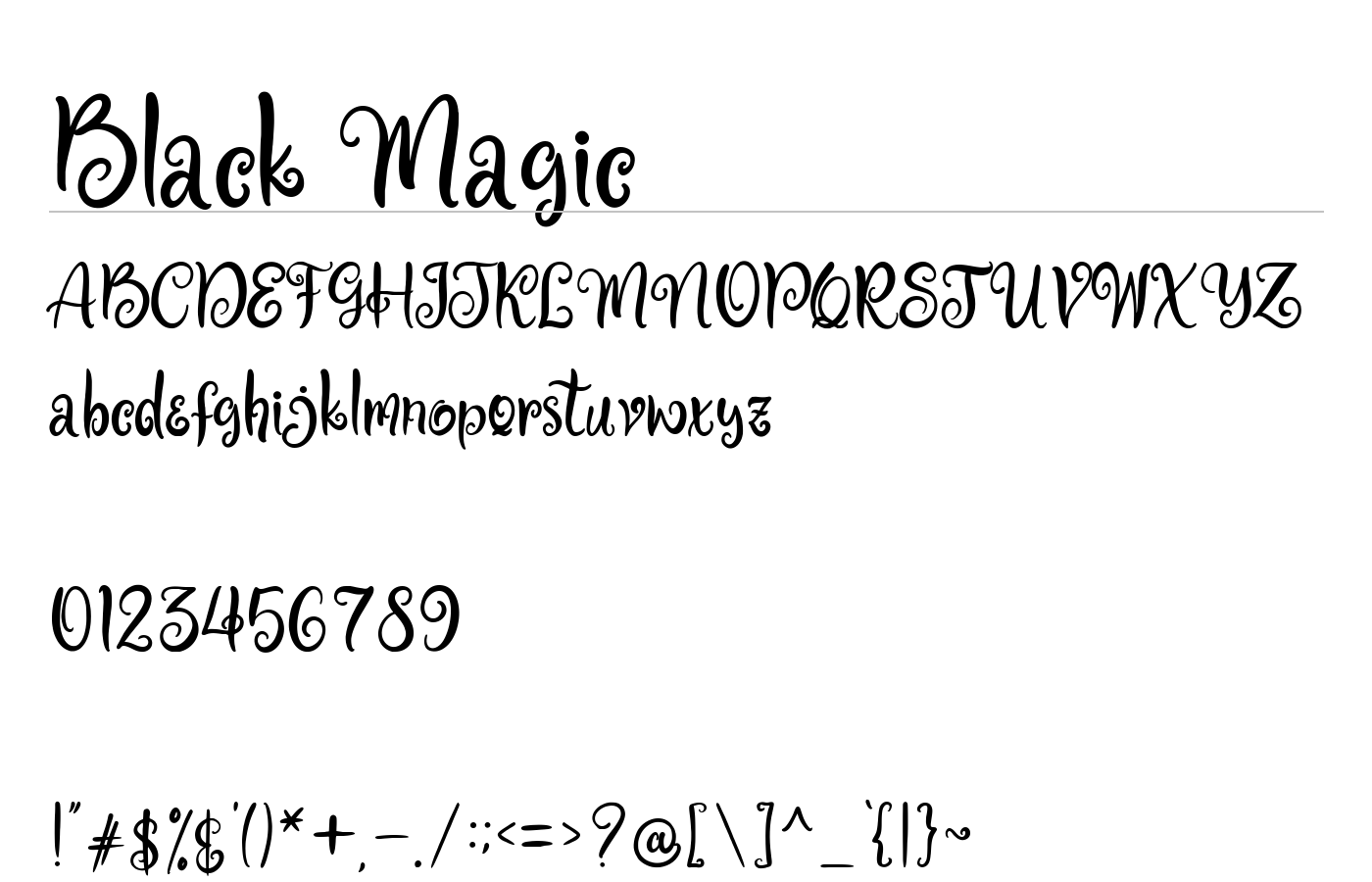
Black Magic is a whimsical, decorative script font with playful curls and swirls, giving it a magical and enchanting feel. Its thin strokes and expressive letterforms make it perfect for creative projects like party invitations, fantasy-themed branding, and festive posters. This font adds a charming and mysterious touch, ideal for designs seeking a unique and fanciful personality.
Black Magic Font
About Black Magic Font